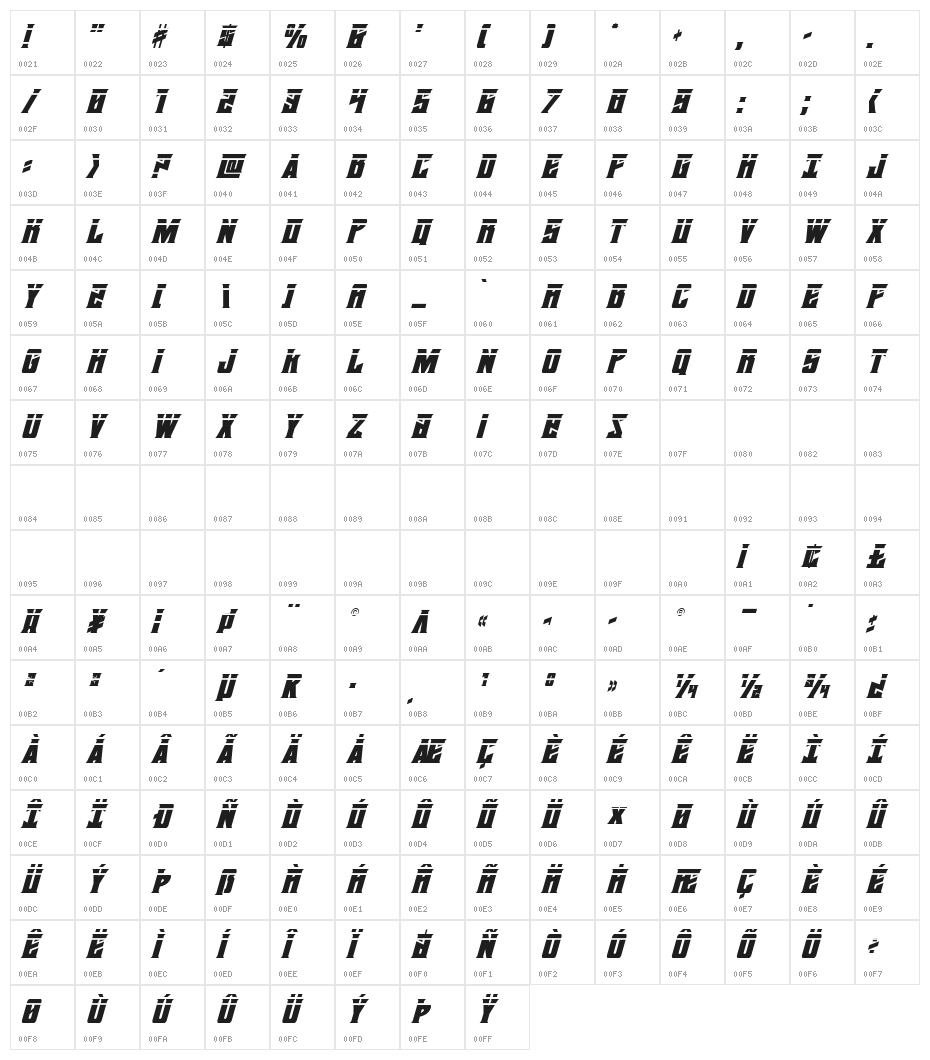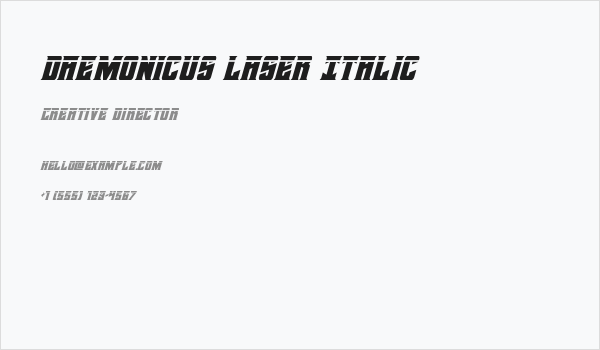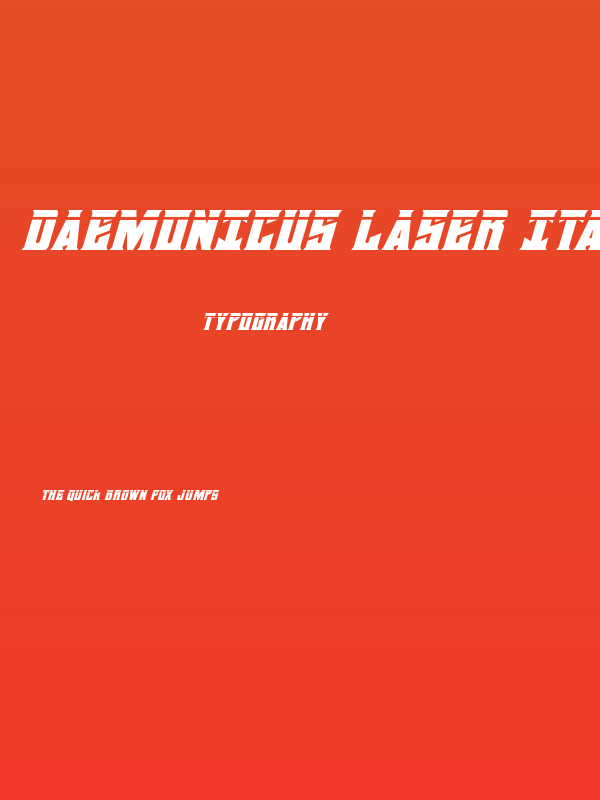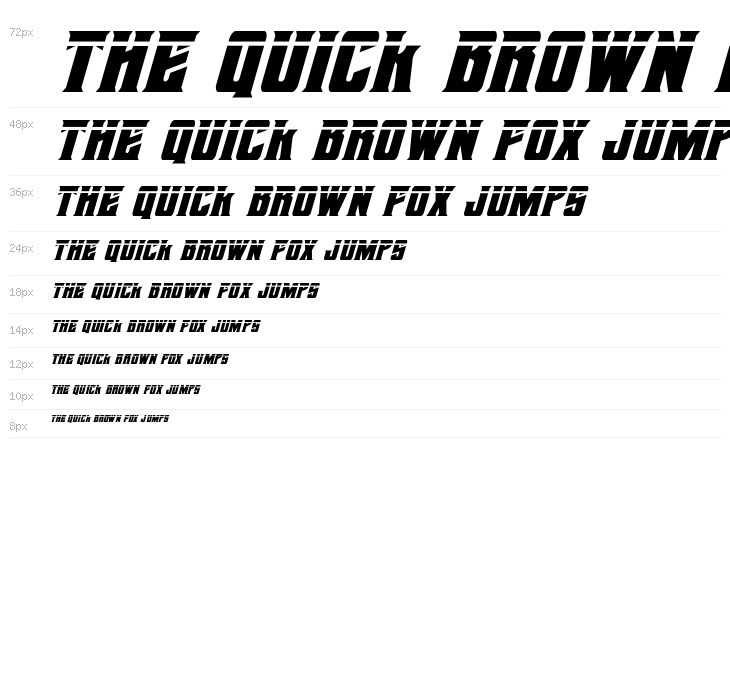
Daemonicus Laser Italic Font
Daemonicus Laser Italic Description
This font features a bold and aggressive style with sharp, angular edges and a futuristic aesthetic. The characters are italicized, giving them a dynamic and forward-leaning appearance. The strokes are thick and consistent, creating a strong visual impact. The design incorporates a high level of contrast between the thick strokes and the sharp, pointed terminals, enhancing its boldness. The uppercase and lowercase letters maintain a uniform style, while the numerals and special characters complement the overall design. This font is ideal for projects that require a modern and edgy look.
| Overall Style | Futuristic, Edgy |
| Proposed Projects | Suitable for sci-fi movie posters, video game titles, branding for tech companies, and edgy graphic design projects. |